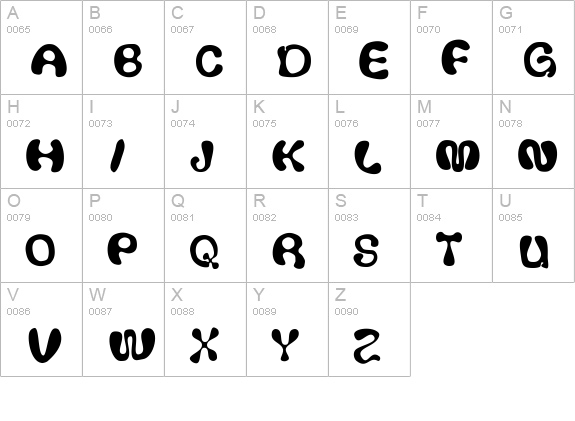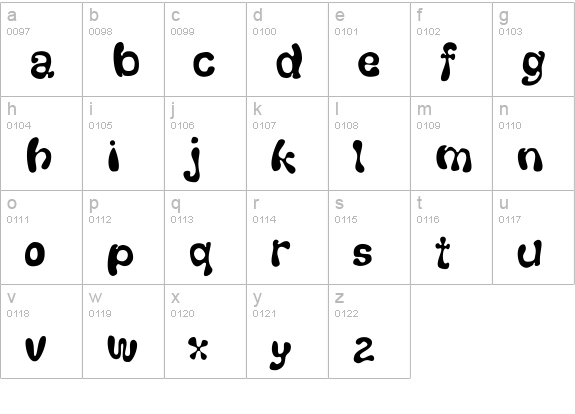
HomerBoy font is a playful and whimsical typeface that embodies the spirit of fun and creativity. With its unique design and charming appearance, this font is perfect for adding a touch of personality to any project. The rounded edges and bold strokes of HomerBoy give it a friendly and inviting feel, making it ideal for a variety of uses such as logos, branding, posters, and more. What sets HomerBoy font apart is not only its delightful aesthetic but also the fact that it is available for free download at FontsMarket.com. This means that you can easily access this versatile and eye-catching font without any cost, allowing you to unleash your creativity without any limitations. Whether you're a designer looking to add a touch of whimsy to your work or simply someone who appreciates a fun and lively font, HomerBoy is sure to become a go-to choice for all your design needs.